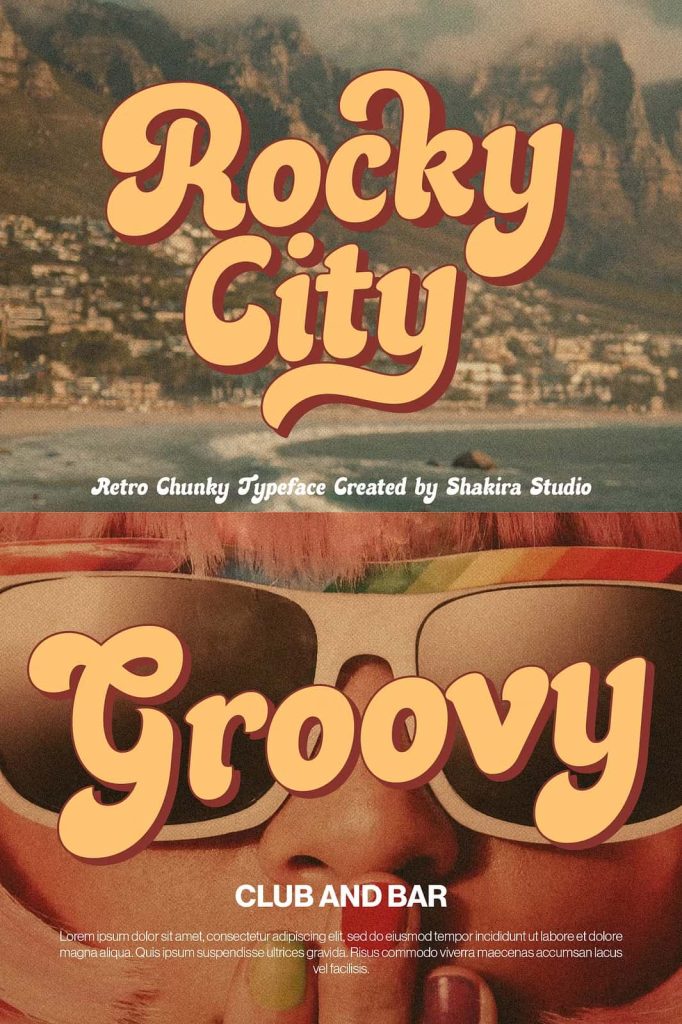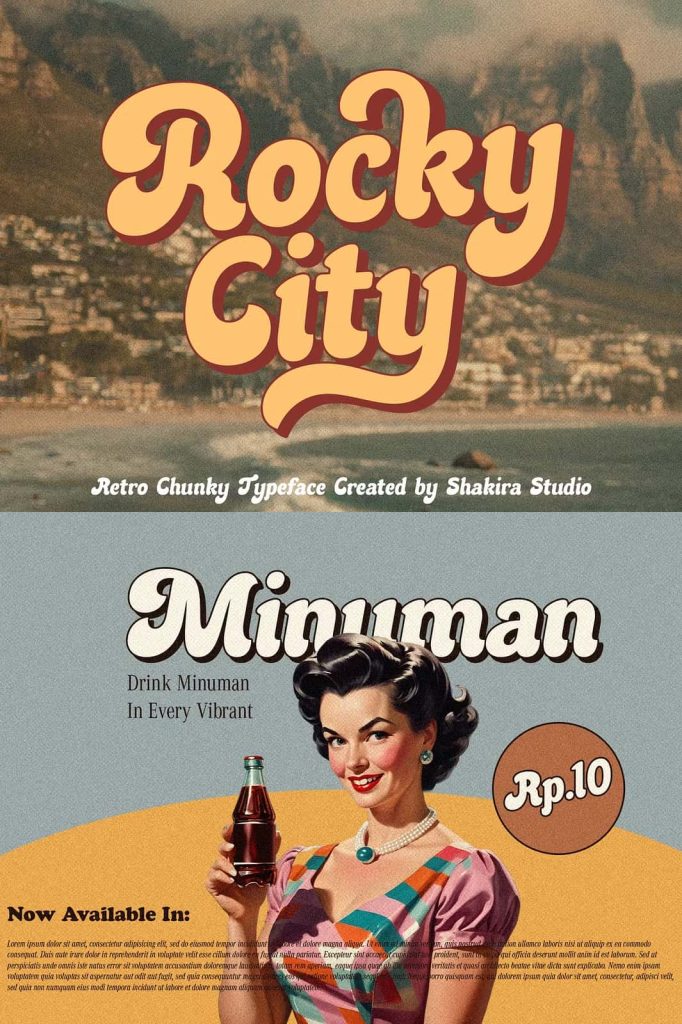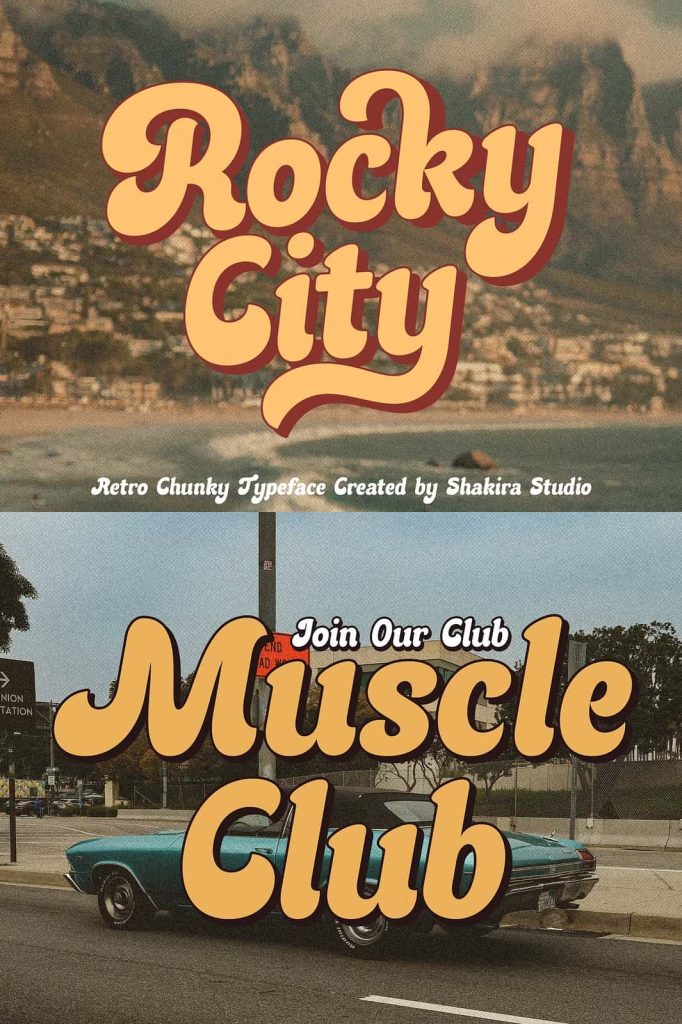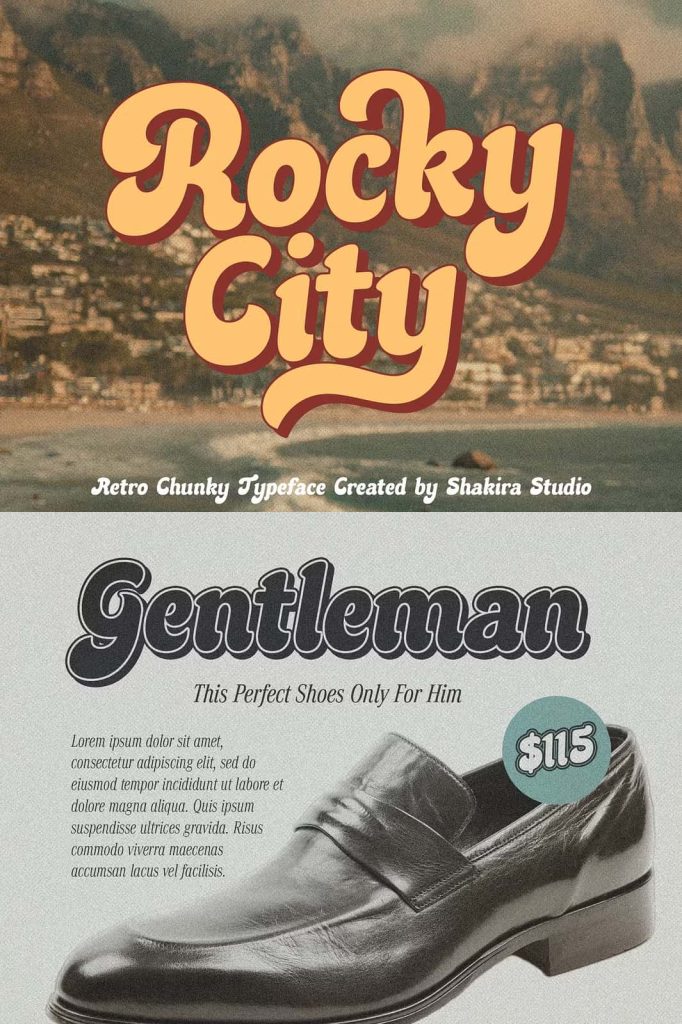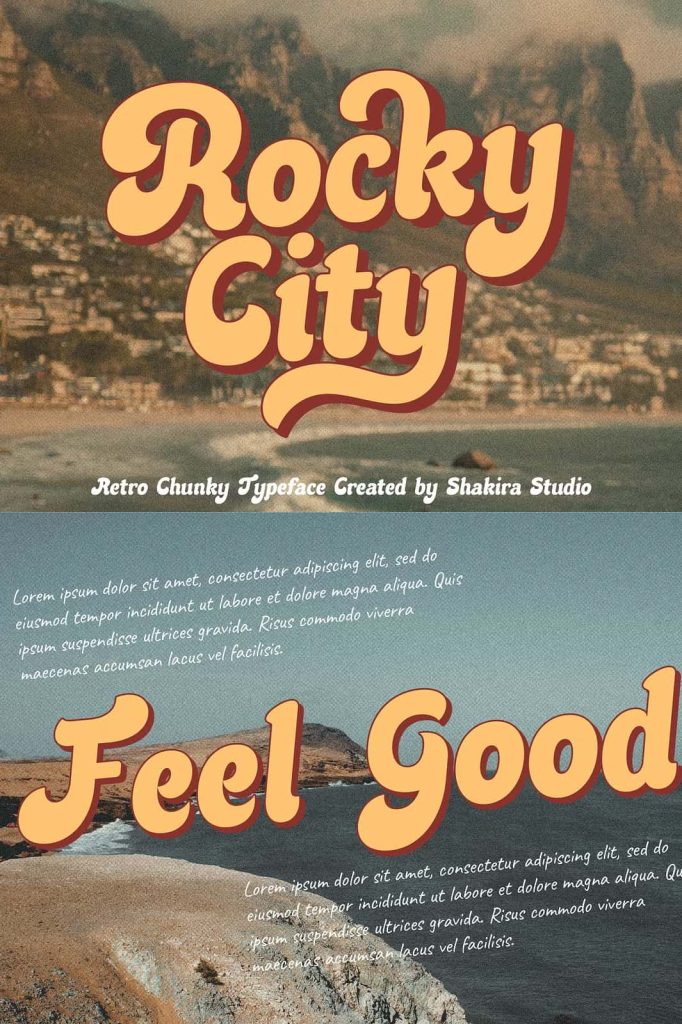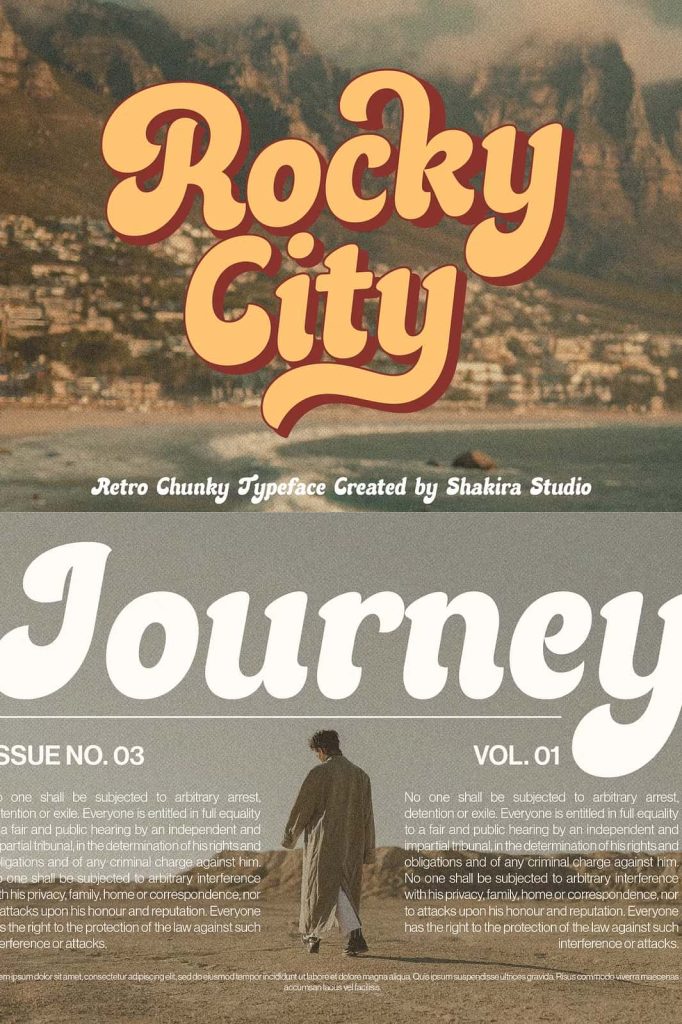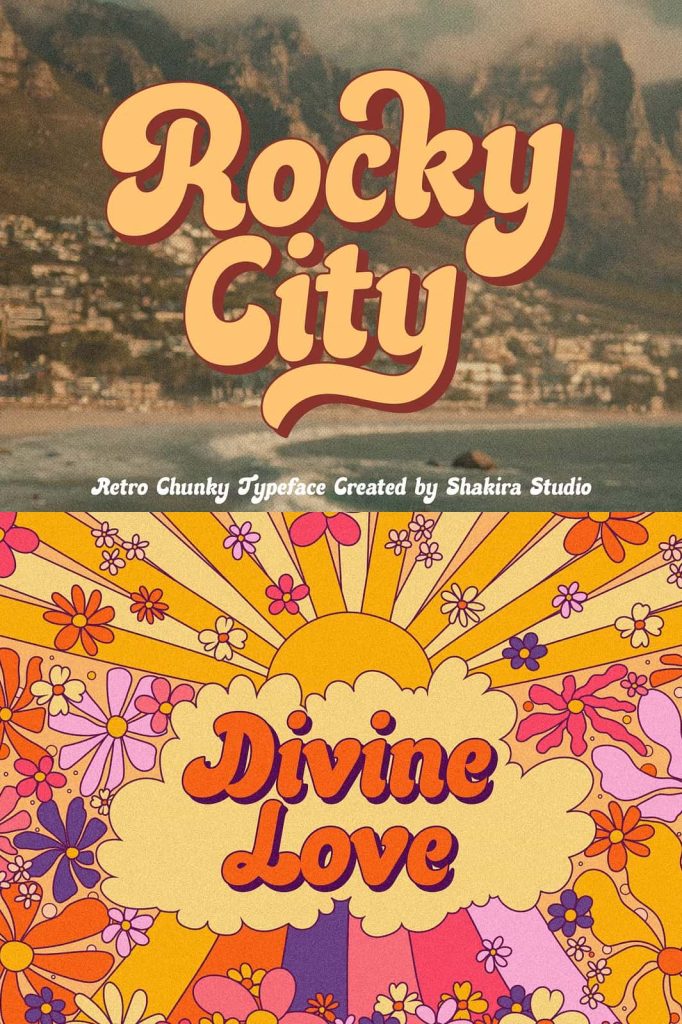
Rocky City – Retro Chunky TypefaceleastedJuly 16, 2024Fonts Rocky City is not just a font; it’s a powerful throwback to vintage design with a modern edge. Download